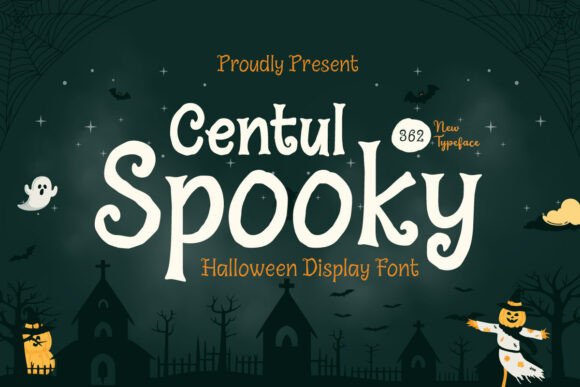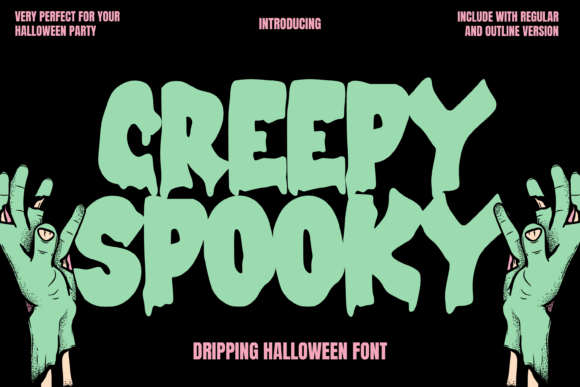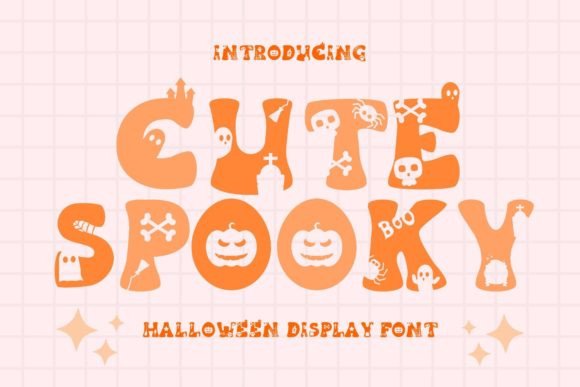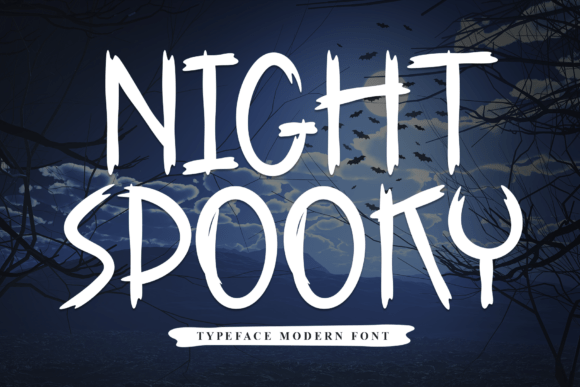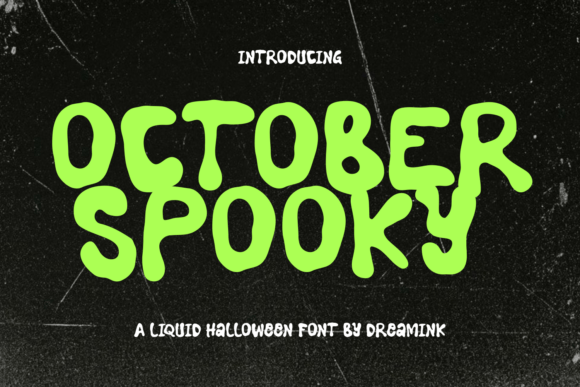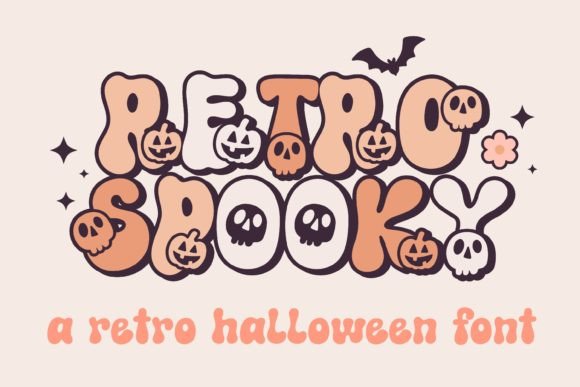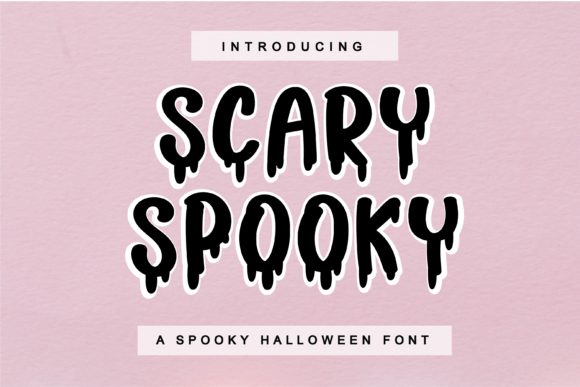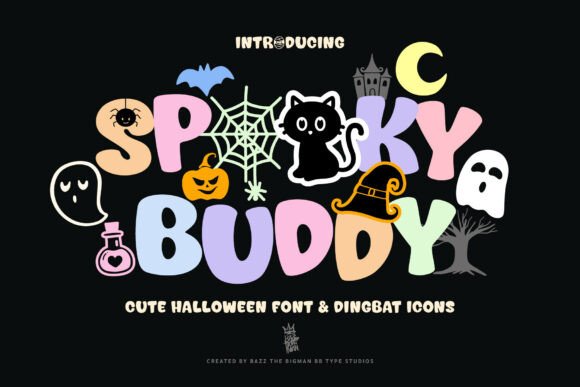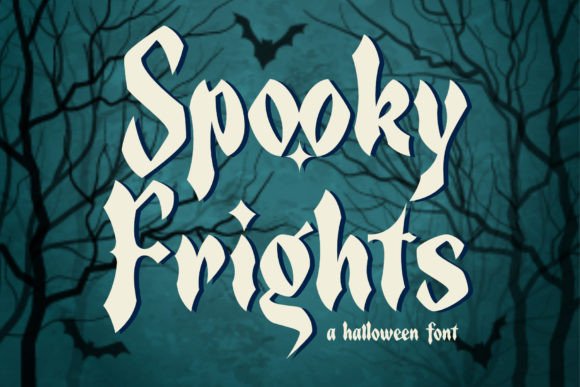
Scary Fonts: 43 Best Halloween Horror & Display Picks (2026)
Scary fonts do most of the storytelling before anyone reads a single word: dripping slime, jagged grunge edges, and gothic curves all signal horror on sight. This collection rounds up 43 more bold Halloween display fonts, from clean gothic serifs to full horror-grunge drip styles, so you have a deep well of scary fonts to pull from all season.
Picking the Right Intensity of Scary Fonts
Not all scary fonts are equally scary. Some, like Spooky Rainbow or Cute Spooky, lean playful and retro. Others, like Creepy Spooky or Night Spooky, go full horror-grunge with dripping or torn-paper textures. Before picking from this set of scary fonts, think about your audience: a school fall-festival flyer wants the lighter end of the list, while a haunted house or horror movie poster can use the heaviest, most distressed styles. For more on the traditions these designs draw from, see Wikipedia’s overview of Halloween’s history.
Styling Tips for Horror Typography
Scary fonts work harder when the rest of the design supports them. Keep the color palette tight, black, deep red, or bone white read as horror instantly, while a busy rainbow palette undercuts even the scariest letterforms. Give dripping and grunge-style scary fonts room to breathe: a cluttered layout buries the texture that makes them work. And always pair a heavy display font with a plain, high-contrast font for any fine print, since dense horror lettering gets unreadable fast at small sizes.
43 Scary Fonts for Halloween
Scan through for the texture and intensity that fits your project, from clean bold display faces through to full horror grunge.
1. Spooky Drips
Best for: Apparel & Merch, Posters & Flyers
A bold dripping horror display font with multilingual support, built for t-shirts, posters, and Cricut projects.
2. Spooky Ghouls Duo
Best for: Halloween Decor
A chunky display font paired with a casual handwriting script, built for high-impact SVG cut files and Print on Demand designs.
3. Scary Spooky
Best for: Party Invitations
A dramatic Halloween font suited to party invitations and web graphics that need extra punch.
4. Spooky Witchy
Best for: Party Invitations, Logos & Branding
A beguiling serif with audacious curves, built for witch-themed branding, storybook headlines, and haunted house invitations.
5. Spooky Moon
Best for: Logos & Branding, Posters & Flyers
A handcrafted horror-inspired display font with PUA encoding, ideal for movie posters and seasonal branding.
6. Spooky Season (Playful)
Best for: Halloween Decor
A naturally spooky display font with a playful structure for fun fantasy Halloween projects.
7. Retro Spooky (Dramatic)
Best for: Halloween Decor
A spooky, fun font for any October project that needs a dramatic touch.
8. Spooky Buddy
Best for: Halloween Decor
A cute display font combined with Halloween dingbat icons mapped to the lowercase keys, handy for classroom activities and party invites.
9. Spooky Runway
Best for: Halloween Decor
Tall letterforms with dripping slime edges and jagged monster cutouts, while staying fully legible for headlines.
10. Spooky Season (Retro)
Best for: Halloween Decor
A retro font with cute ghost and bat graphics built into each letter, PUA encoded for easy glyph access.
11. Spooky Treats
Best for: Halloween Decor
A chunky display font paired with a casual script, optimized for clean vinyl cutting and sublimation printing.
12. Spooky Wicked
Best for: Logos & Branding, Posters & Flyers
A haunting display font with a handcrafted vintage feel for horror posters and seasonal branding.
13. October Spooky
Best for: Halloween Decor
A bold liquid display font with melting, organic letterforms that stay highly readable across digital and print use.
14. Spooky Sans
Best for: Party Invitations
A bold soft-block Halloween sans serif, great for party invitations and web graphics.
15. Retro Spooky
Best for: Apparel & Merch, Cricut & Cutting Machines
A cute vintage font with playful decorative elements for crafts, t-shirts, and Cricut projects.
16. Spooky Witch
Best for: Apparel & Merch, Stickers & Decals
A display font decorated with a flying witch, spider webs, and pumpkins for t-shirts, stickers, and greeting cards.
17. Spooky Halloween (Bold Chunky)
Best for: Apparel & Merch, Stickers & Decals
Puffy, cartoon-style letterforms with wavy edges, built for die-cut stickers and neon-color trick-or-treat apparel.
18. Spooky Memories
Do scary fonts work outside of Halloween?
Many do. Gothic serifs and grunge display styles show up year-round in horror publishing, metal band merch, and true-crime content, so several fonts in this list are worth keeping past October.